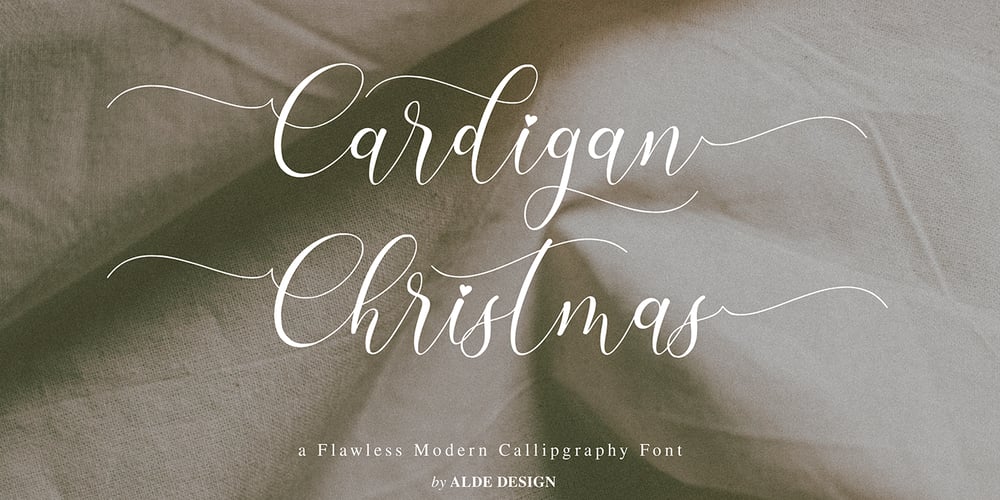
Cardigan Christmas Font Family was designed by Alde Saputro and published by Aldedesign. Cardigan Christmas contains 2 styles and family package options. Cardigan Christmas // Modern Calligraphy is a stylish script font that features a varying baseline, smooth line, modern, and depth of love. For those of you who need a touch of love and modernity for your designs or branding, it can be used for various purposes such as headings, weddings, invitations, signatures, logos, branding, t-shirt, letterhead, signage, labels, news, posters, badges, etc.Each Font Has: Stylish modern handwritten script Beautiful Swash (Ending tail) Beautiful Titling (Beginning tail) Special Ligatures Multilingual Support